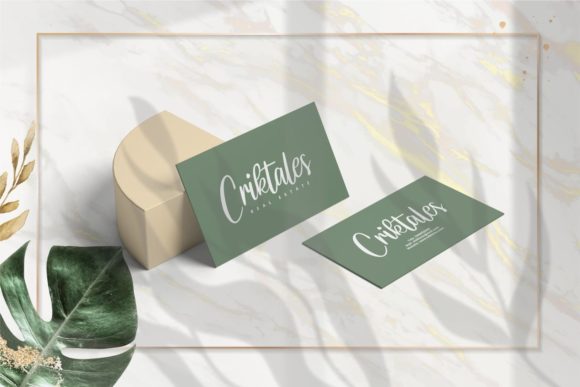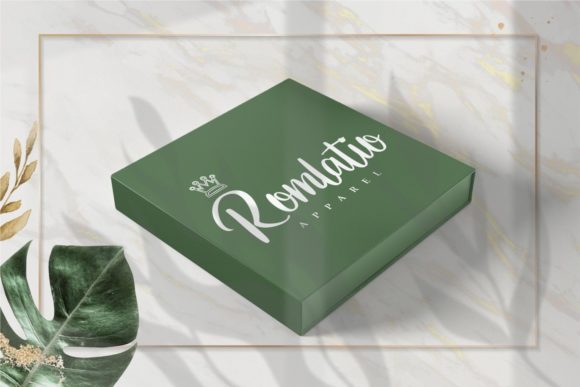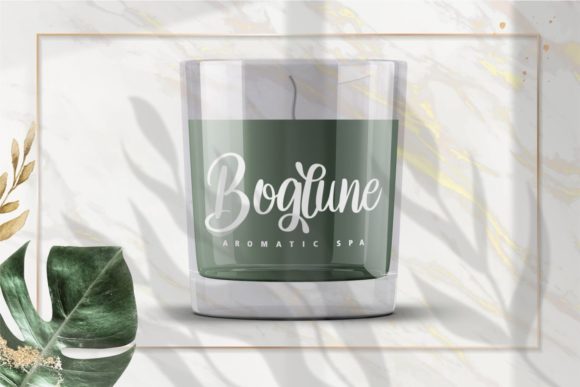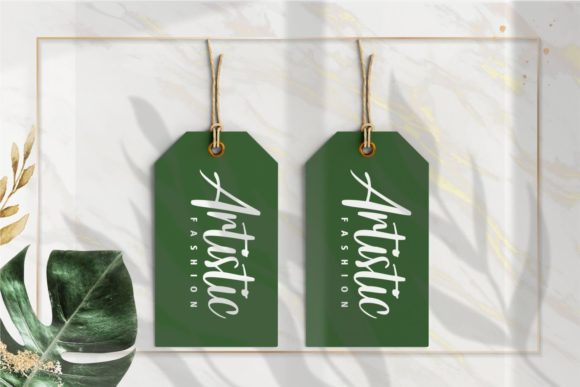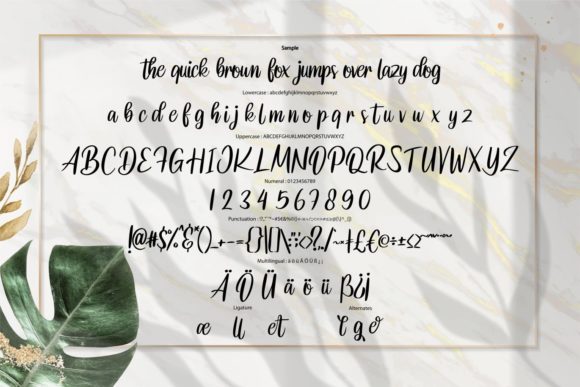
Introducing Detteline Font: Elevate Your Designs with a Touch of Elegance
In the world of design, fonts play a pivotal role in conveying messages, evoking emotions, and creating lasting impressions. For designers, crafters, and DIY enthusiasts, finding the perfect font can be a game-changer. This is where Detteline Font comes into play—a handwritten font that exudes a natural and beautiful flow, perfect for a myriad of creative projects. In this article, we’ll dive deep into the features, uses, and benefits of Detteline Font, and explore how it can elevate your designs to new heights.
The Charm of Detteline Font
Detteline Font is a meticulously crafted handwritten font that boasts a unique, organic feel. Its natural flow and elegant strokes make it an ideal choice for designs that require a personal touch. Whether you’re working on wedding invitations, greeting cards, branding materials, or business cards, Detteline Font adds a touch of sophistication and charm that sets your work apart.
One of the standout features of Detteline Font is its versatility. This font is not limited to a specific type of project; rather, it can be used across a wide range of applications. Here are some ideas to get you started:
- Wedding Invitations: Add a touch of romance and elegance to your wedding invitations with Detteline Font. Its beautiful flow and classic appeal make it perfect for wedding-related designs.
- Greeting Cards: Whether it’s a birthday, anniversary, or holiday card, Detteline Font brings a personal and heartfelt touch to your greetings.
- Branding Materials: Establish your brand’s identity with a font that speaks of sophistication and elegance. Detteline Font can be used in logos, brochures, and other branding materials to create a cohesive look.
- Business Cards: Stand out in the professional world with business cards that feature Detteline Font. Its unique style ensures that your card is memorable.
- Quotes and Posters: Detteline Font is also great for typography quotes and posters. Its elegant strokes make quotes look inspiring and posters look captivating.
Why Choose Detteline Font?
With so many fonts available, why should Detteline Font be your go-to choice? Here are a few compelling reasons:
- Unique and Eye-Catching: Detteline Font offers a unique style that can make your designs stand out from the crowd.
- Elegant and Versatile: Its elegant appearance and versatile nature make it suitable for a wide range of projects.
- Easy to Read: Despite its decorative nature, Detteline Font remains clear and easy to read, making it functional as well as beautiful.
- High-Quality: As a high-quality font, Detteline ensures that your designs look professional and polished.
Tips for Using Detteline Font
To make the most of Detteline Font, here are a few tips:
- Pair with Complementary Fonts: For maximum impact, pair Detteline Font with fonts that complement its style. A simple sans-serif font can create a nice contrast.
- Play with Sizes: Don’t be afraid to experiment with different sizes. Larger text can be used for headings, while smaller text can be used for body content.
- Use Appropriate Colors: Choose colors that match the theme of your project. Detteline Font looks great in both classic black and subtle pastels.